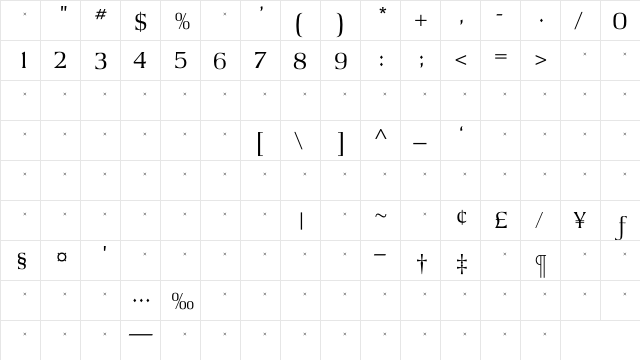
ArgusLightTab Regular
Design Context for ArgusLightTab Typeface
ArgusLightTab is a composed and adaptable typeface that performs quietly and consistently across a wide range of design contexts. The delicate stroke weight brings airiness and refinement to layouts.